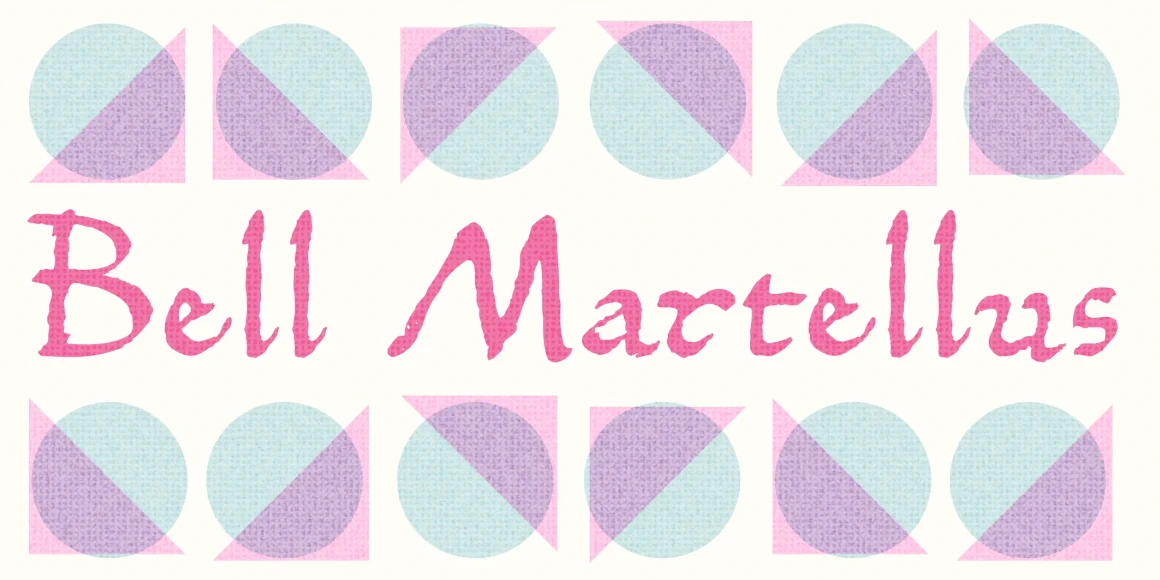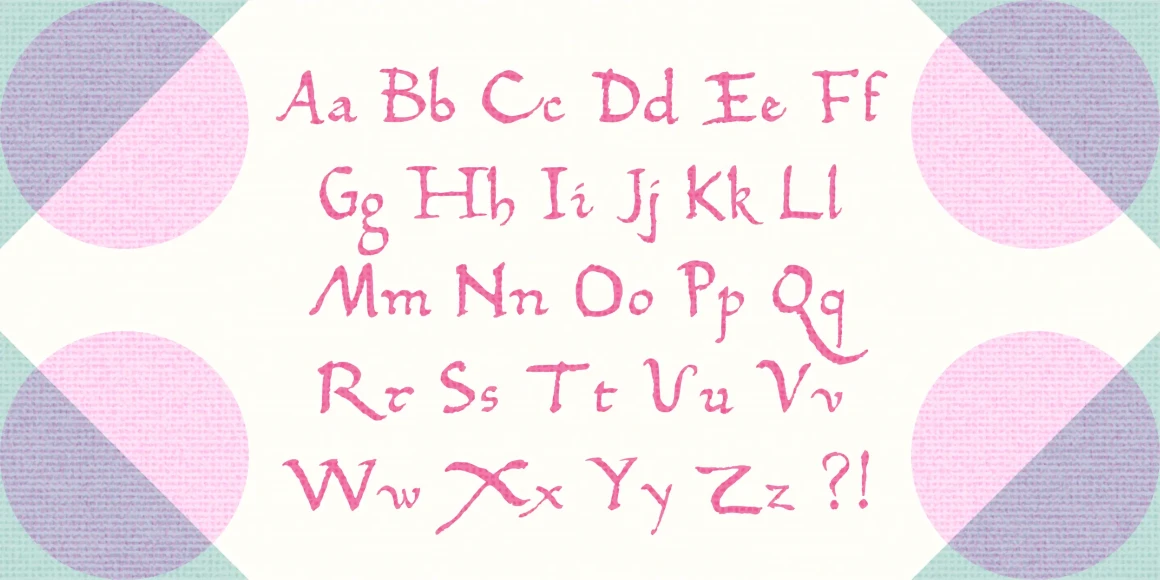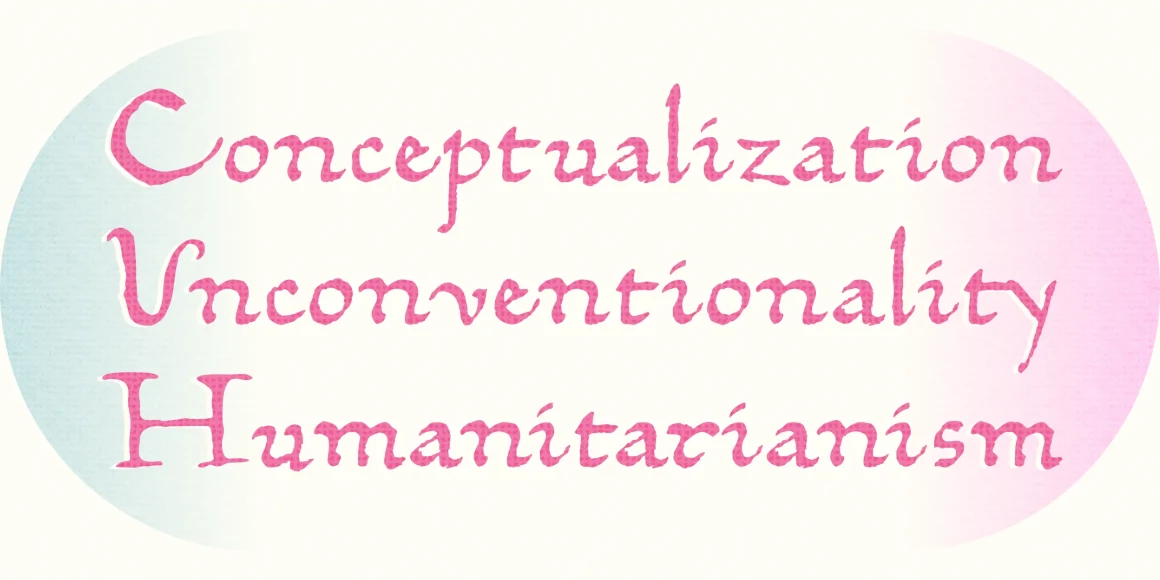
Bell Martellus
Full of texture and regal personality, Bell Martellus was derived from a book published in 1475 by Henricus Martellus entitled “Liber Insularum.” The writing style is based on the Carolingian Script created by the Emperor Charlemagne and his scribe, Alquin of York, in the 9th century A.D. This old world lettering comes with new world OpenType capabilities, including swash caps and small caps.
The James Ford Bell Library at the University of Minnesota commissioned Bill Moran to develop this font as a means of introducing their amazing collection of rare books, maps and manuscripts to a wider audience.
Once the historic script was fontified by Bill, it was forwarded to Chank Co, where we added some snazzy baubles for the discriminating typographer. Everybody can enjoy the antique genuine nature of Bell Martellus, but advanced OpenType users also get extra features in Adobe CS applications.
Designed by Bill Moran & Chank Diesel